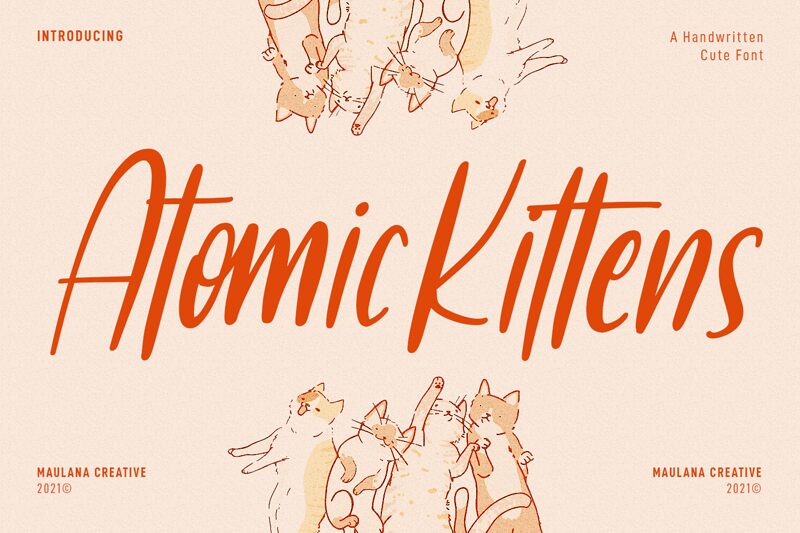
Introducing Atomic Kittens, a playful and quirky handwritten font created by Maulana Creative. With its semi-light weight and condensed width, this font is perfect for adding a touch of whimsy to your designs without taking up too much space. Use it on invitations, greeting cards, or even product packaging to add a fun and lighthearted tone. The unique style of Atomic Kittens makes it perfect for projects that require a personal touch such as scrapbooking or journaling. Let your creativity run wild with Atomic Kittens!
Atomic Kittens